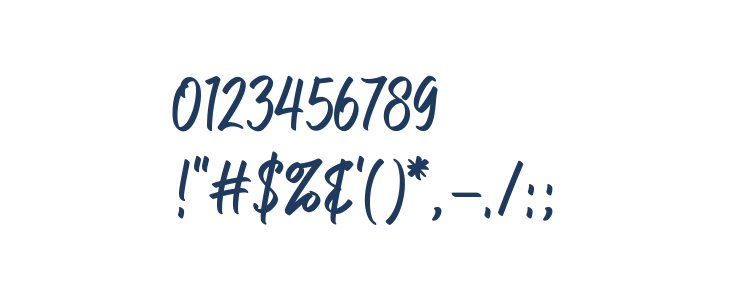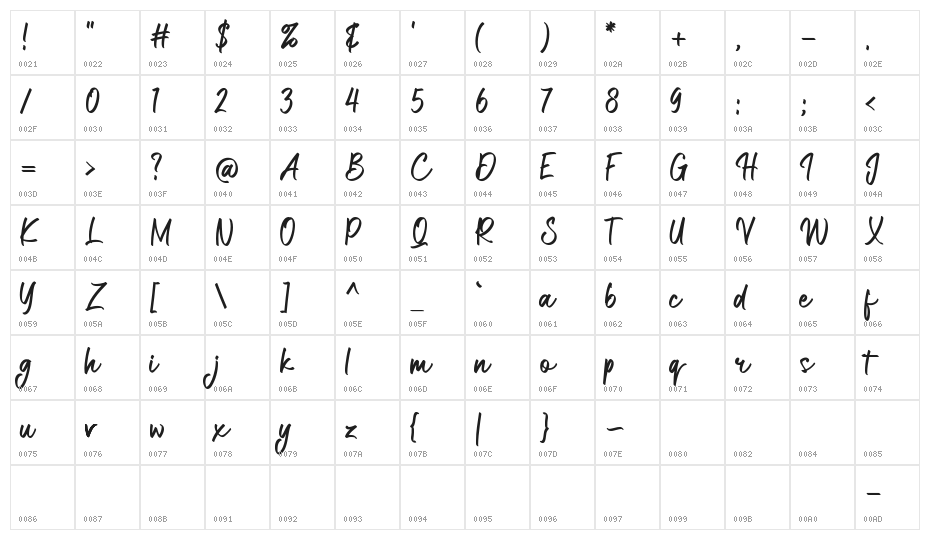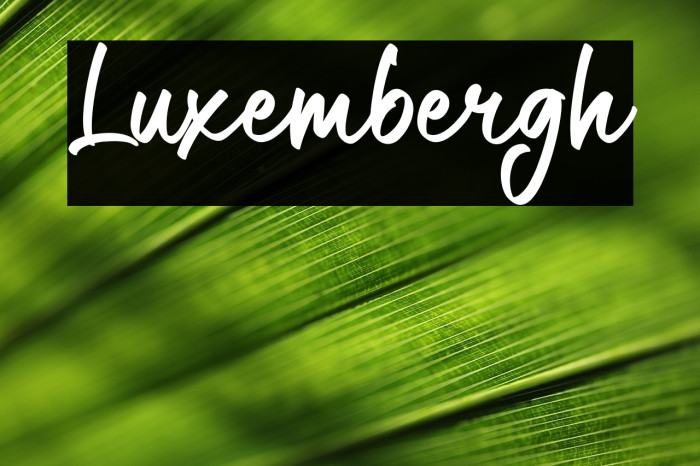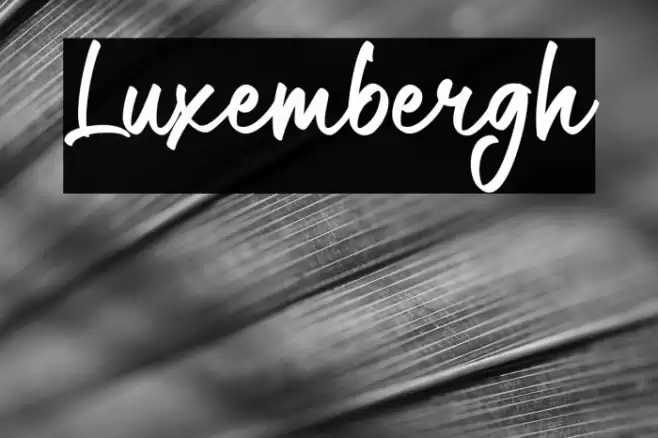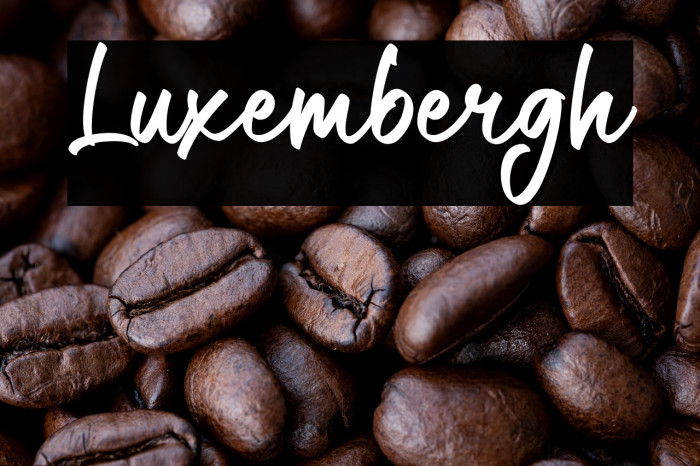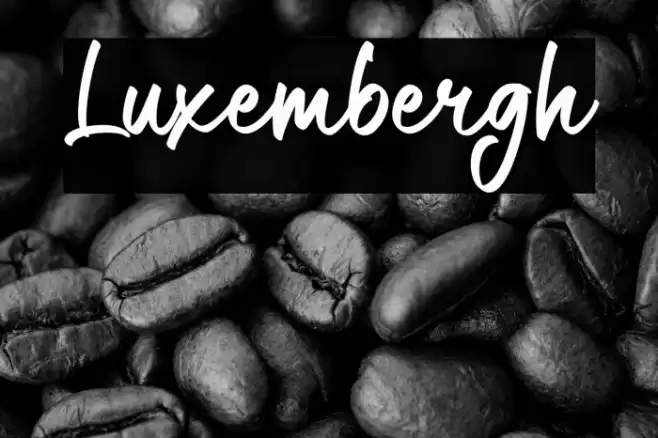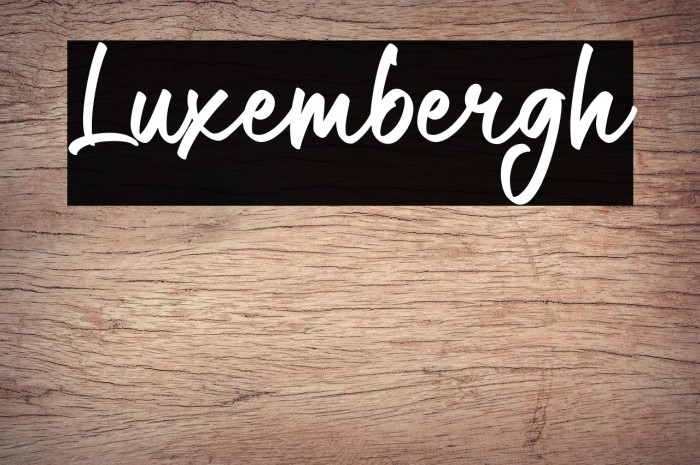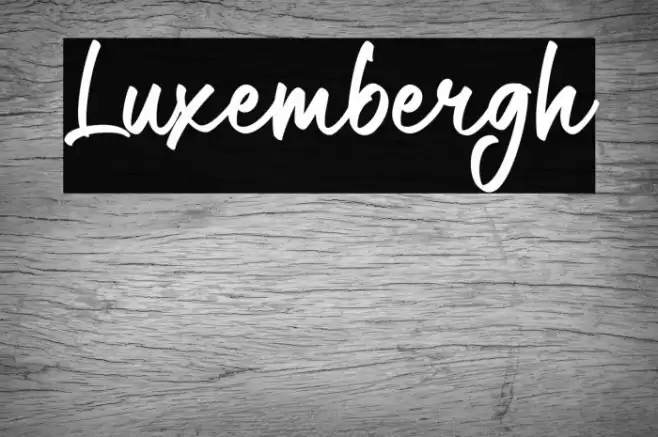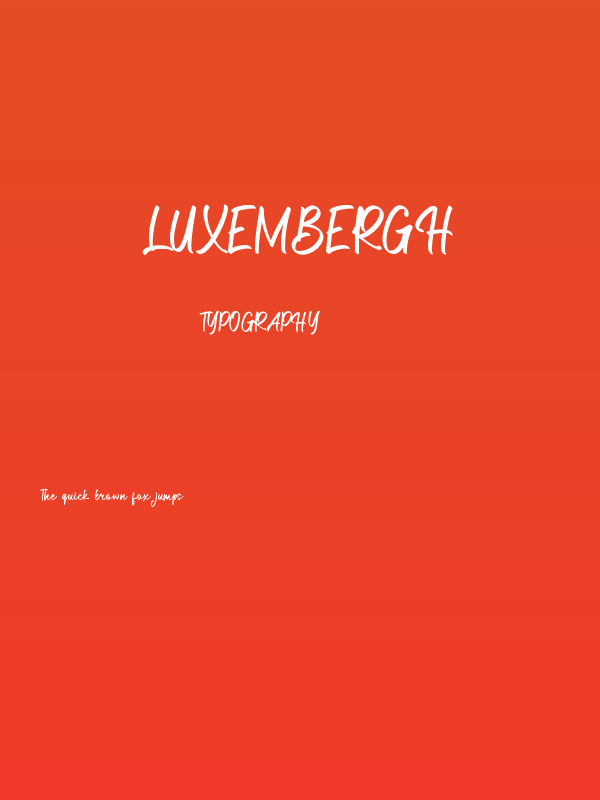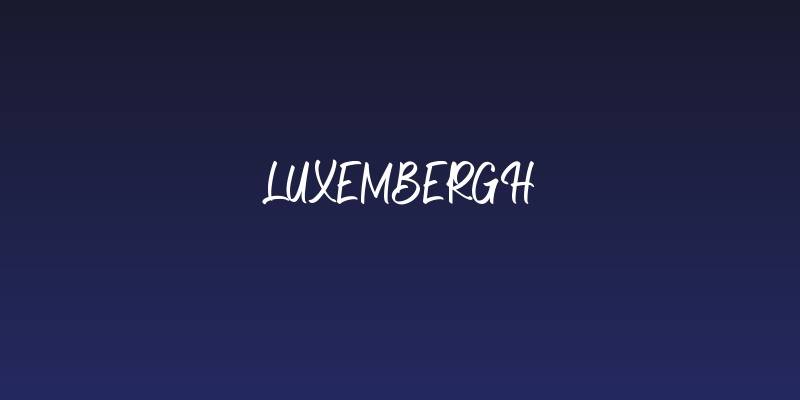
Luxembergh Font
This font features a dynamic and expressive handwritten style, characterized by its fluid and flowing letterforms. The uppercase letters are bold and slightly slanted, giving a sense of movement and energy. The lowercase letters maintain a consistent style, with smooth curves and a casual, yet elegant appearance. Numbers and special characters follow the same aesthetic, ensuring a cohesive look across all text. The font's playful and artistic nature makes it ideal for projects that require a personal touch or a creative flair.
| Proposed Projects | Ideal for greeting cards, invitations, branding, and artistic projects that require a personal touch. |